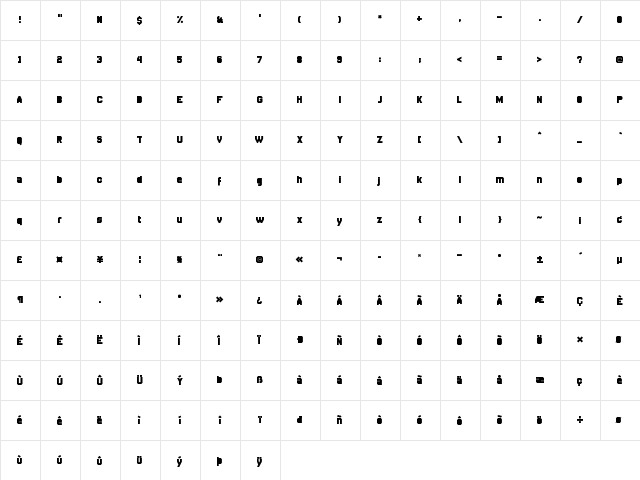
Disparador Filled Regular
| Designer | Tobias Sommer |
Design Context for Disparador Filled Typeface
Disparador Filled is a composed and adaptable typeface that performs quietly and consistently across a wide range of design contexts.